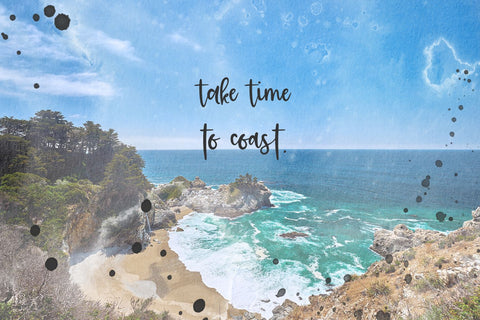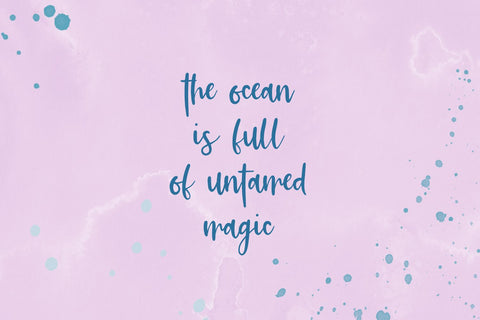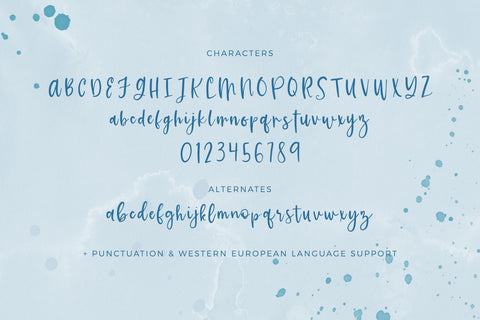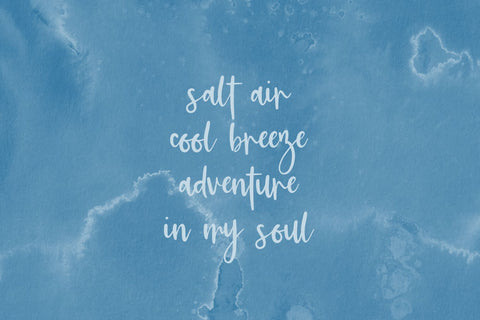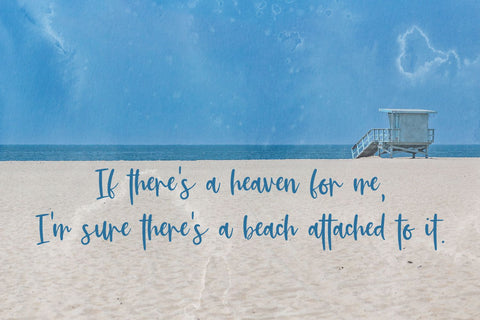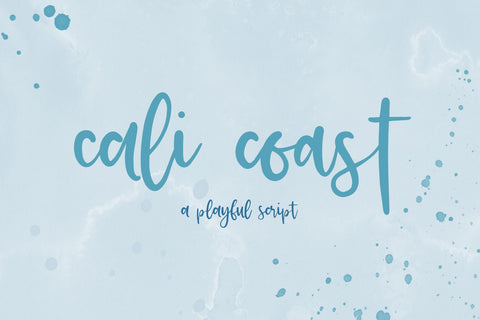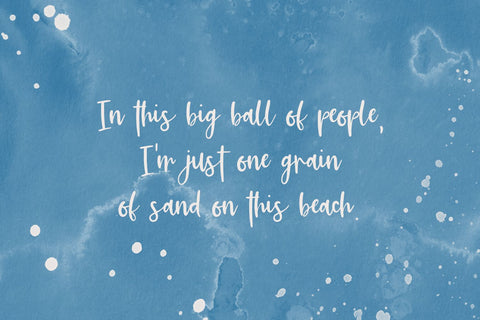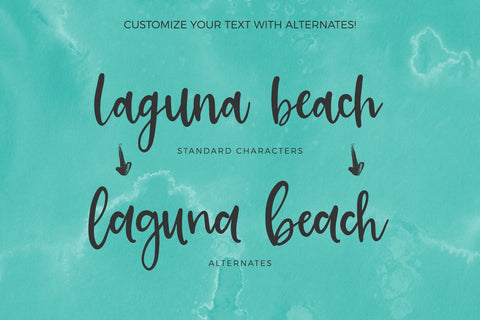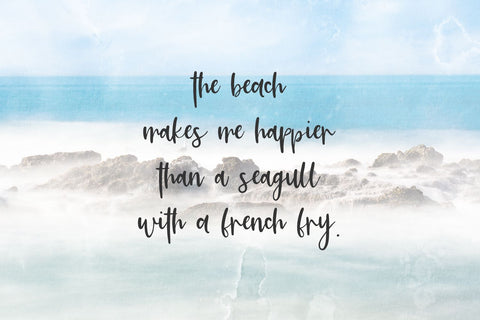
Cali Coast Script Font
Meet Cali Coast Script, an effortless handwritten font. Cali Coast has a feminine aesthetic, with the perfect amount of attitude - casual, relaxed, and stylish. Cali Coast includes a set of lowercase alternates so that you can customize your text just a bit more — some letters have a bit more of a loopy, bubbly feel!
Cali Coast Script is an excellent fit for:
- logo design + branding projects
- print design, like magazines & flyers that need a bold feminine script
- header elements + websites that draw attention
- quote graphics for social media
- crafting with a Silhouette or Cricut machine - it has a super clean edge for easy cutting!
Cali Coast includes:
- full upper + lowercase characters
- numbers + punctuation
- Western European Language Support
- 26 alternates
- Beck McCormick ,